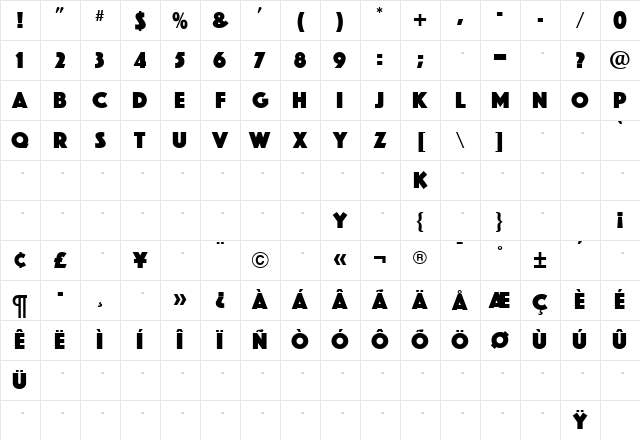
PhosphateSolid Medium
Design Context for PhosphateSolid
PhosphateSolid is a composed and adaptable typeface that performs quietly and consistently across a wide range of design contexts.